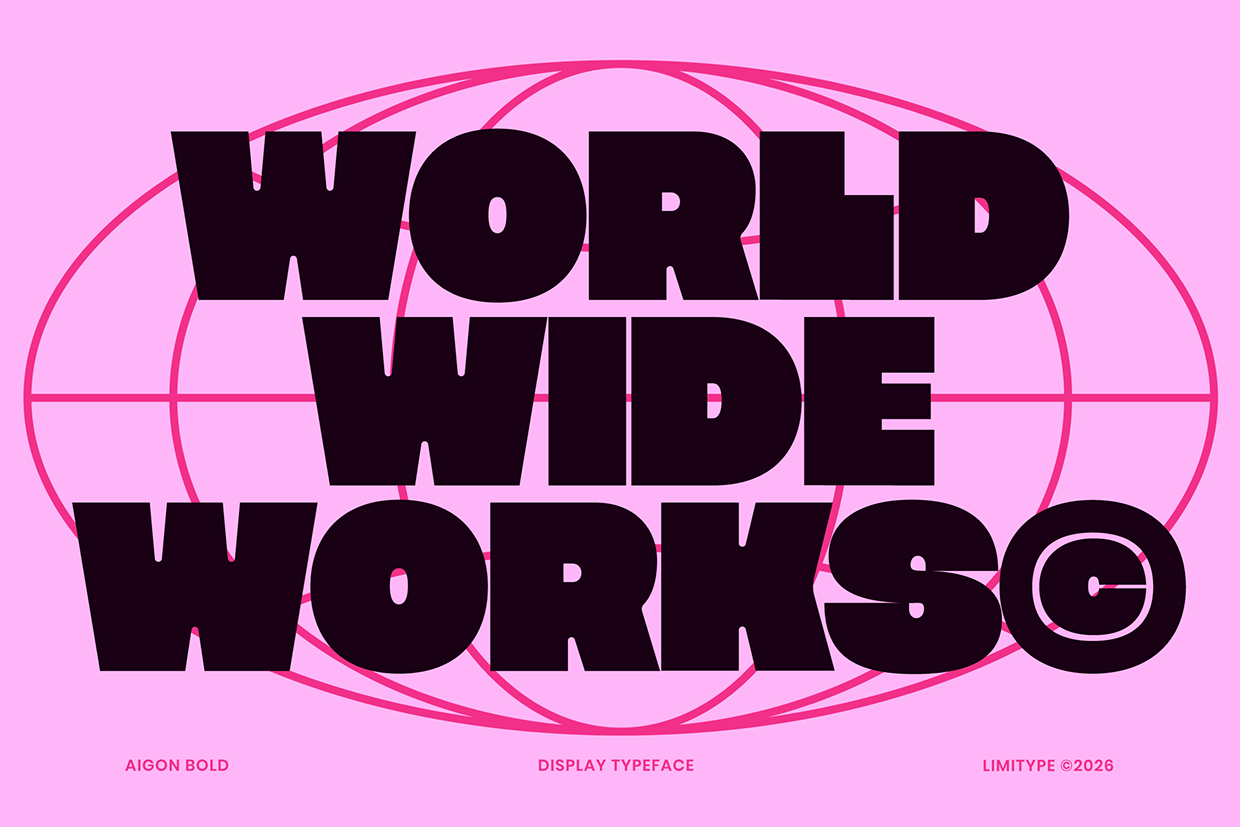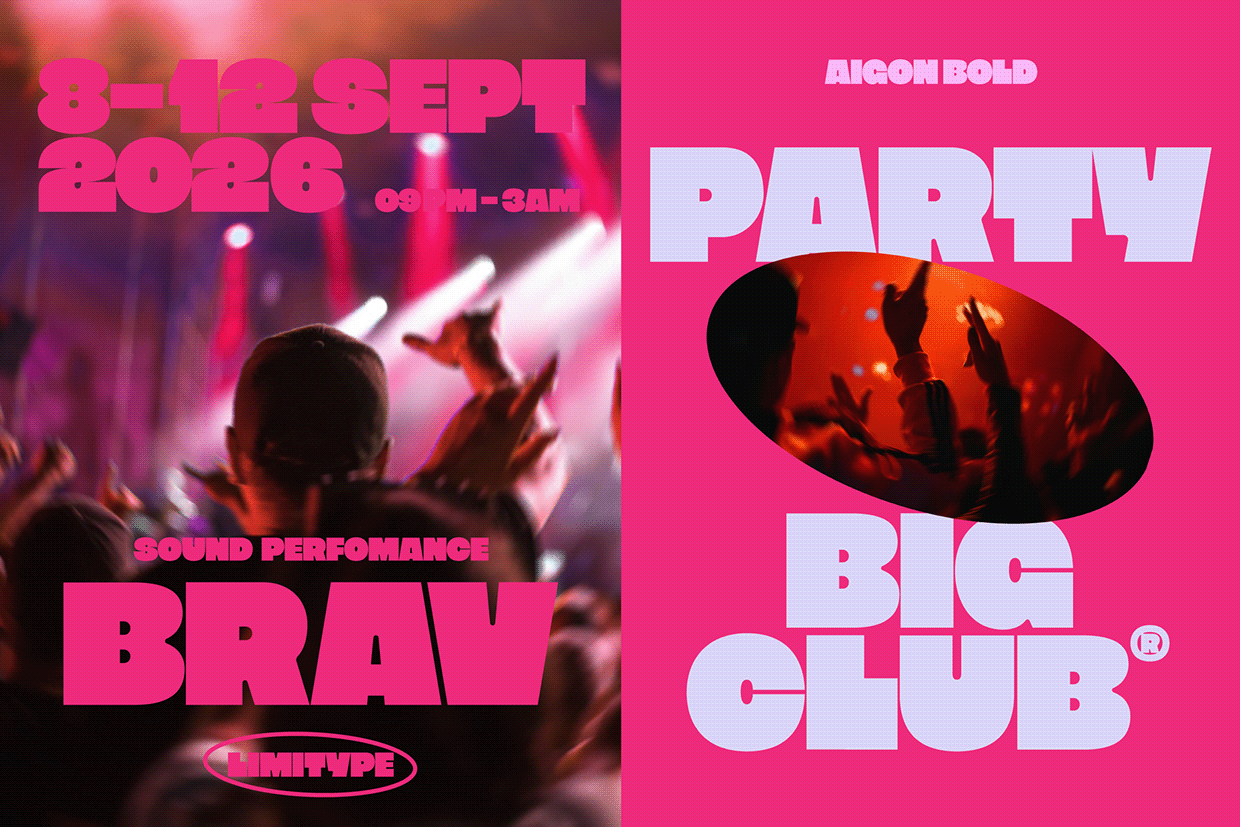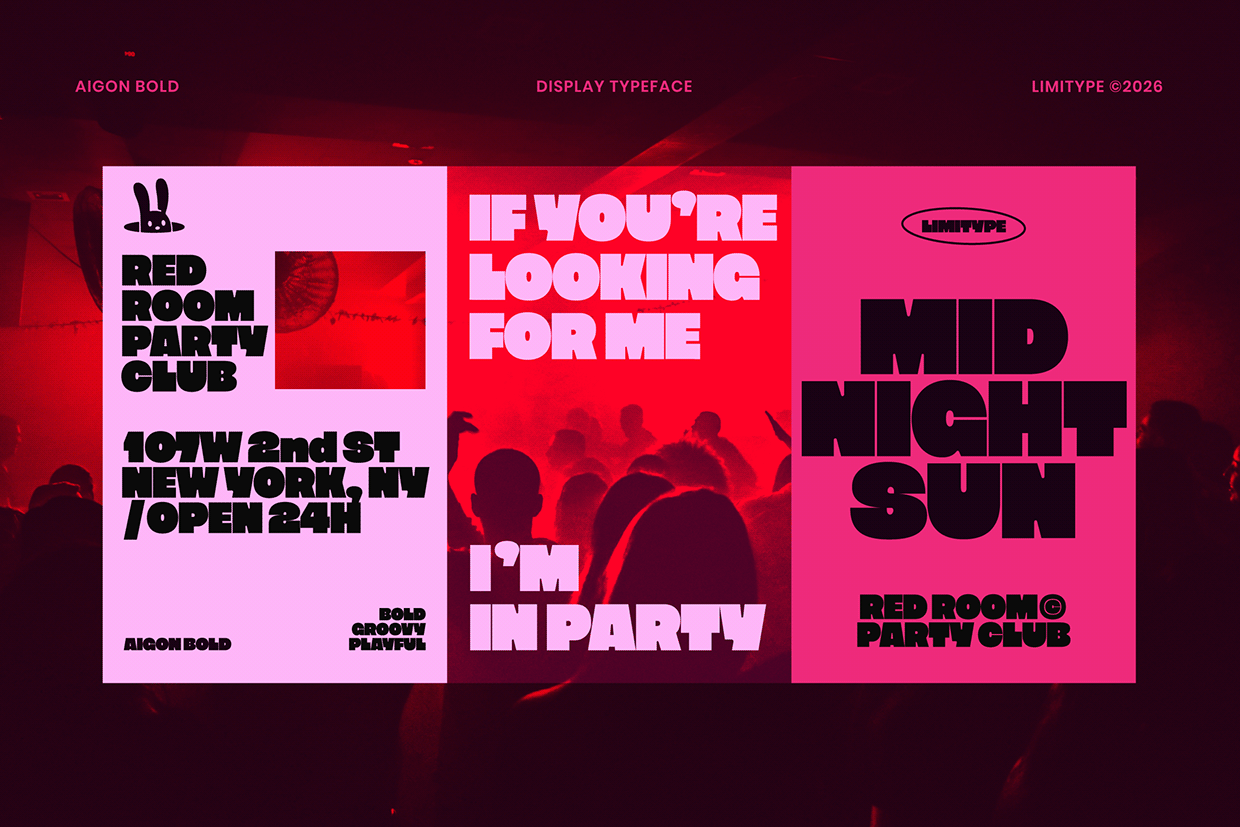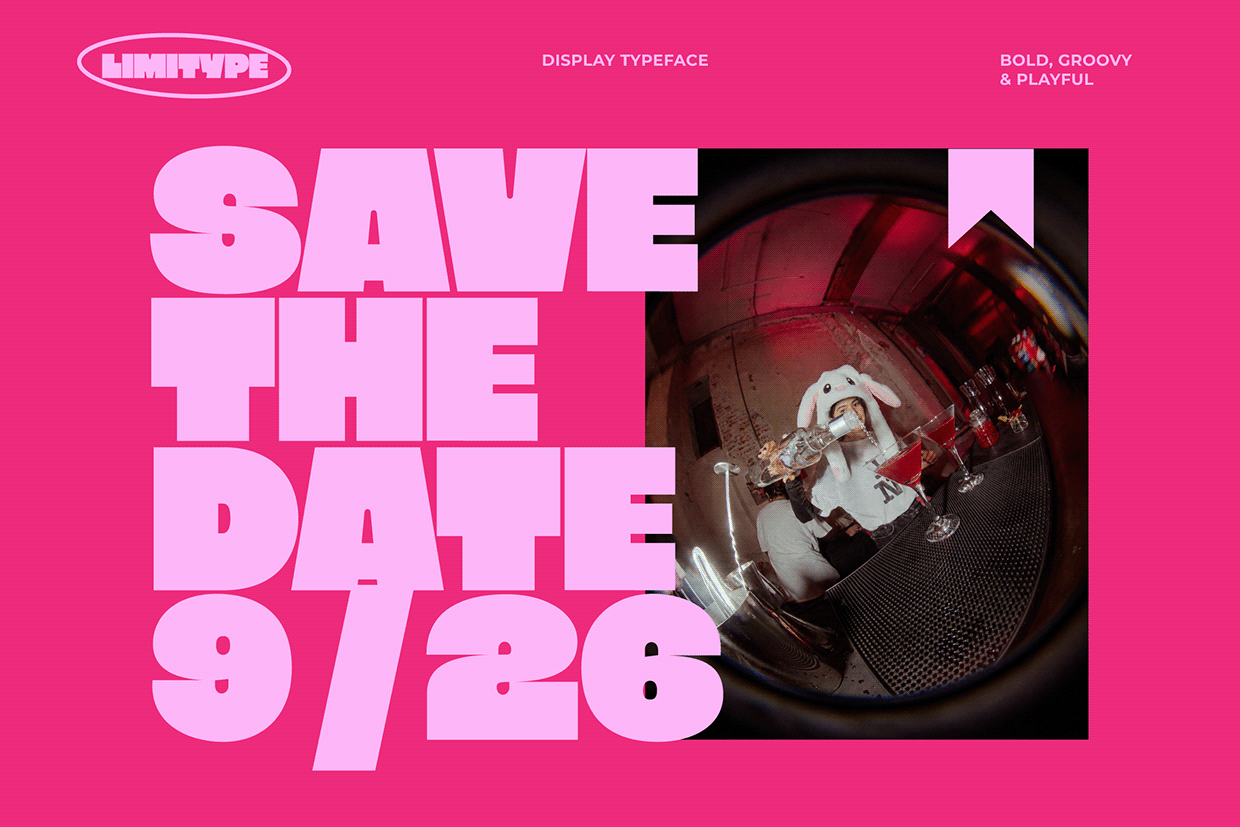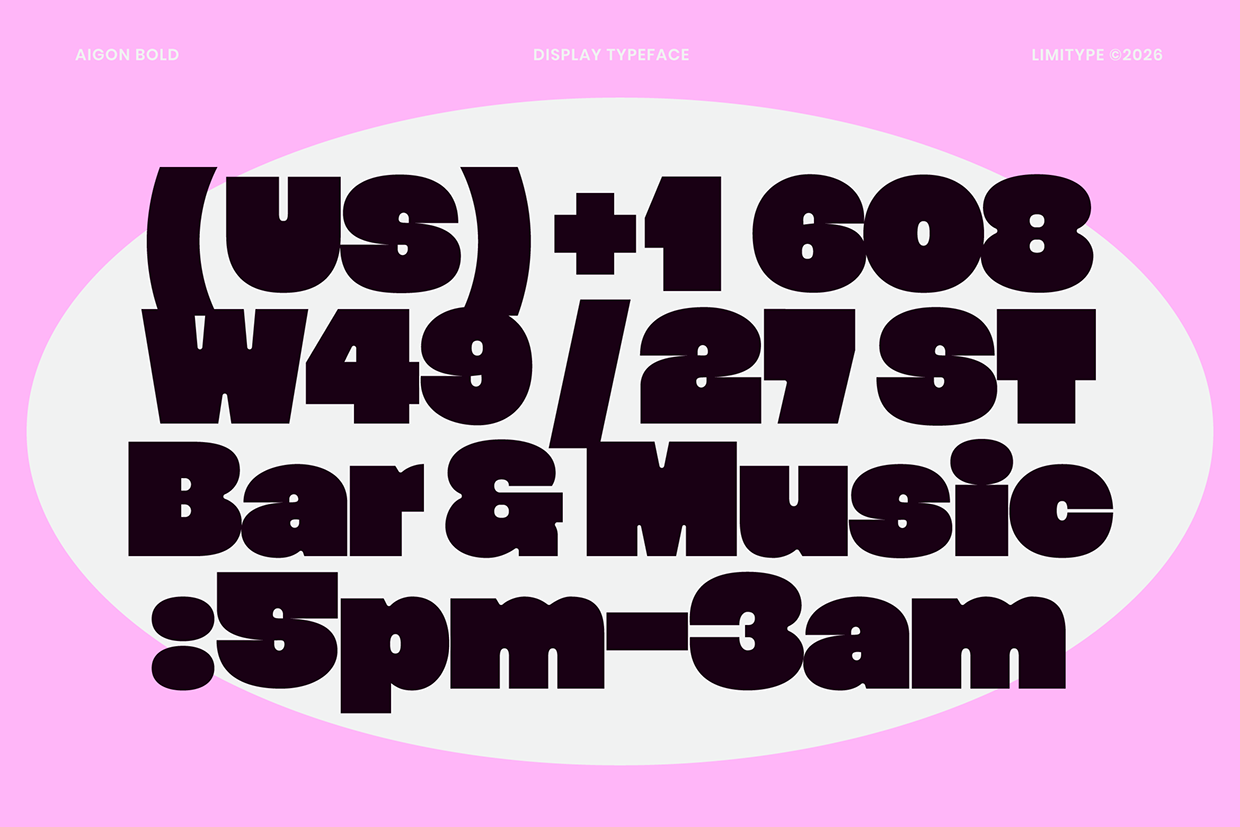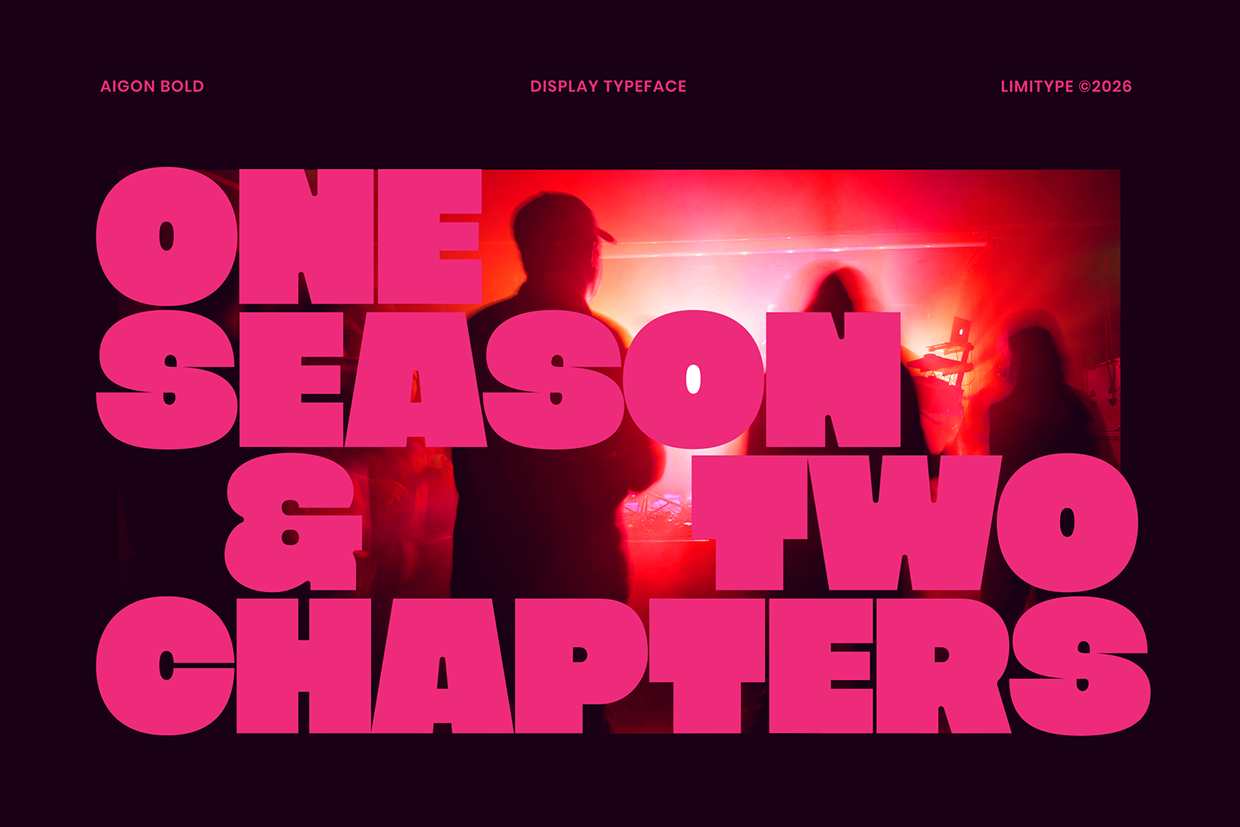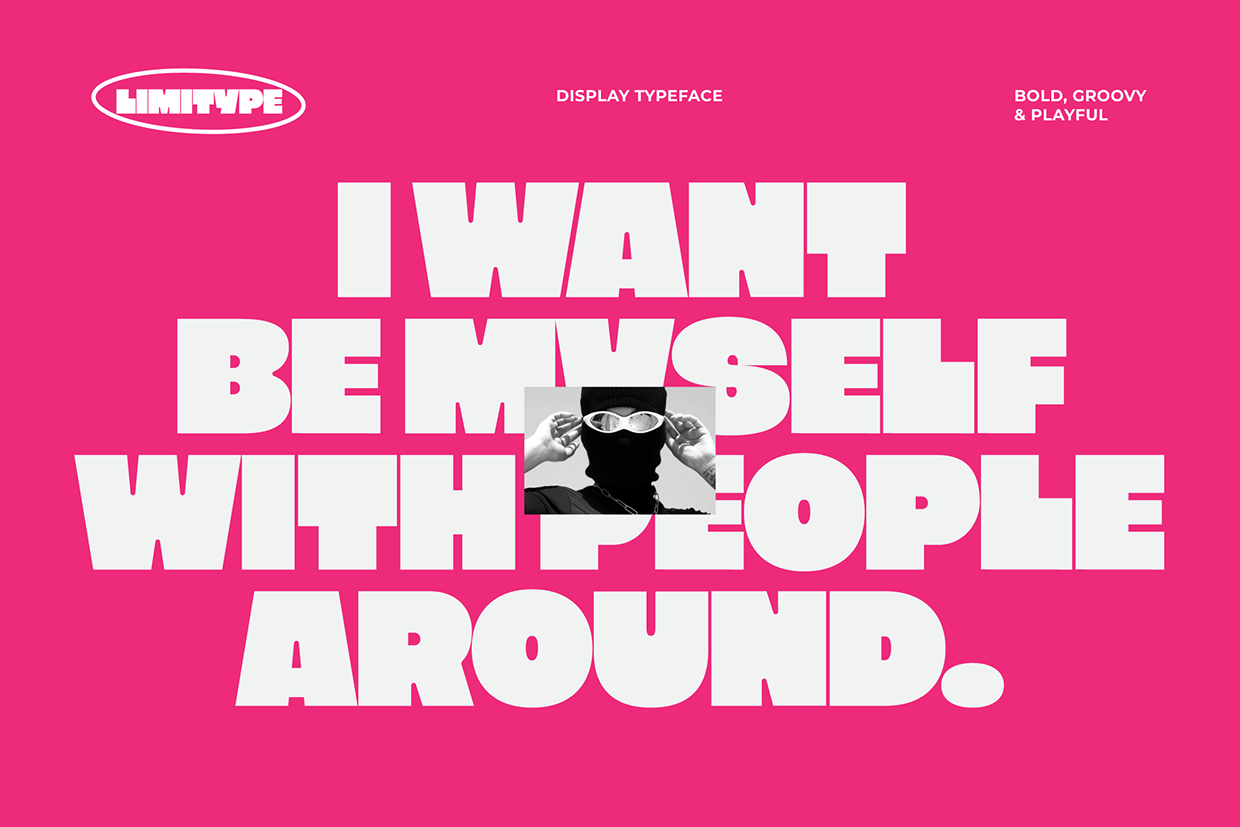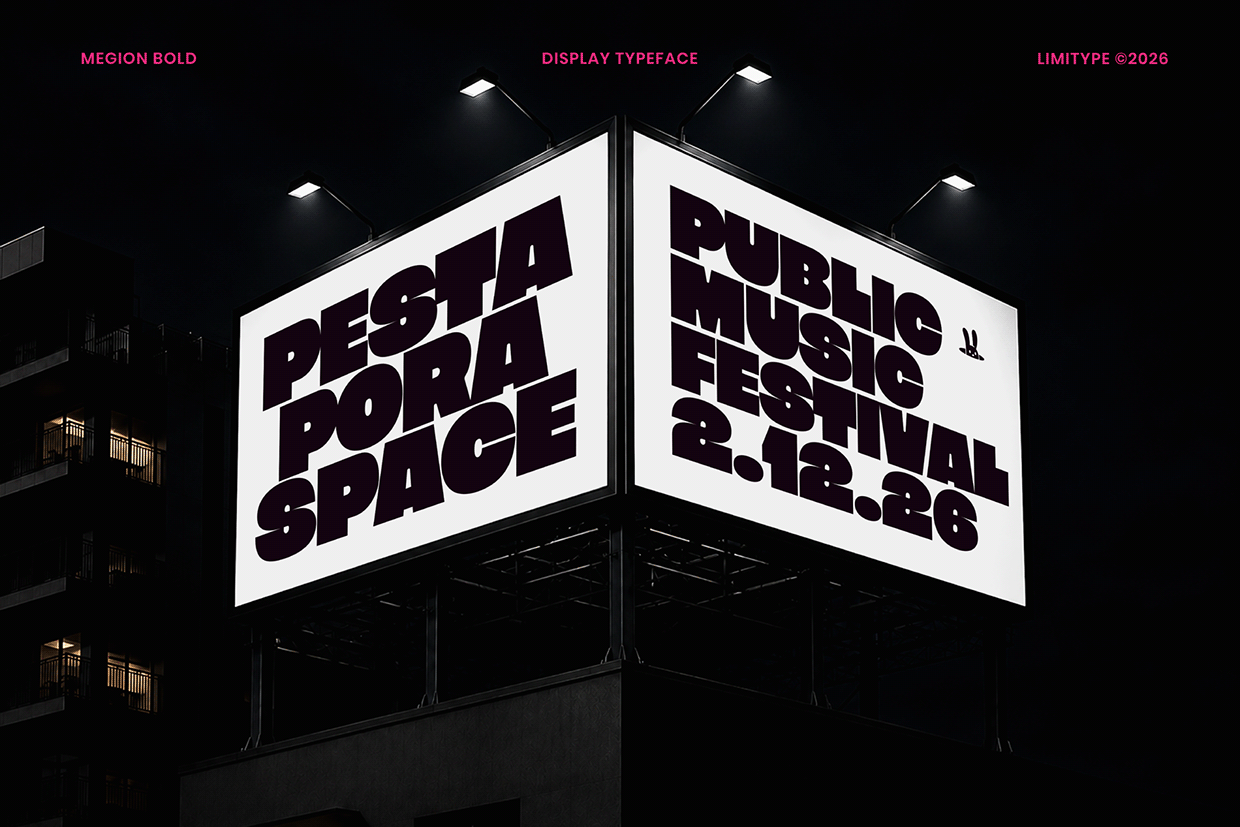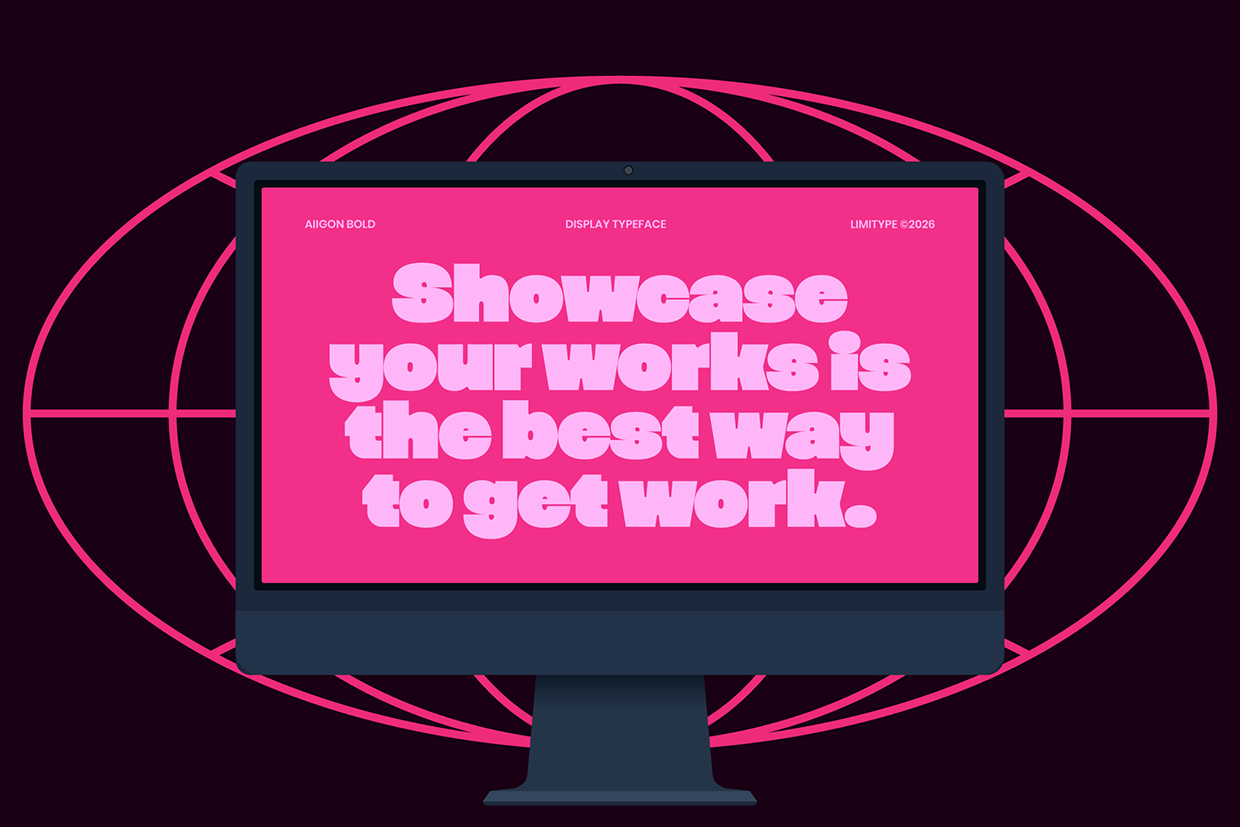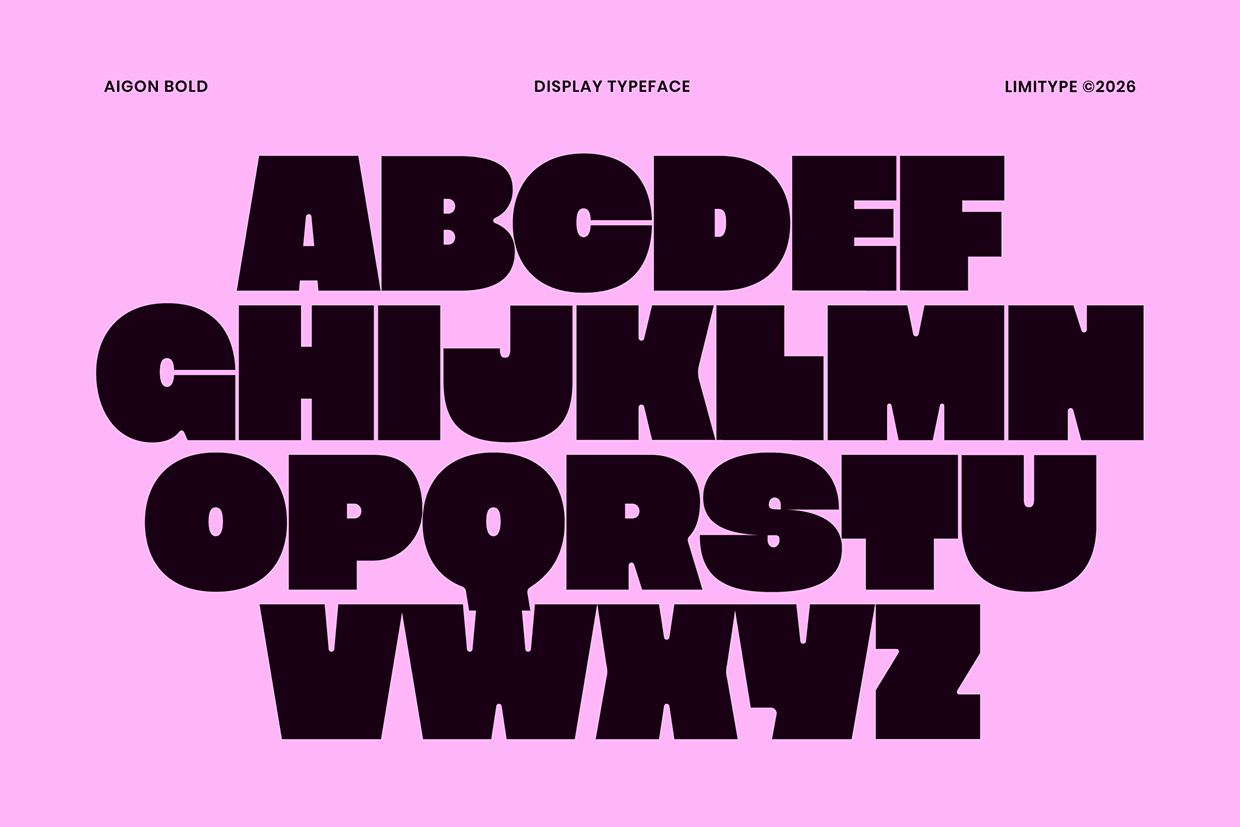
Aigon - Bold Display Font
Aigon is a bold and playful display font featuring thick, heavy, and chunky letterforms with a fun and energetic groovy character. Its bold shapes, compact proportions, and distinctive cut in details create a unique and attention grabbing appearance with a strong visual impact. Perfect for headlines, posters, branding, logos, packaging, social media designs, advertising, and eye catching visual identities.